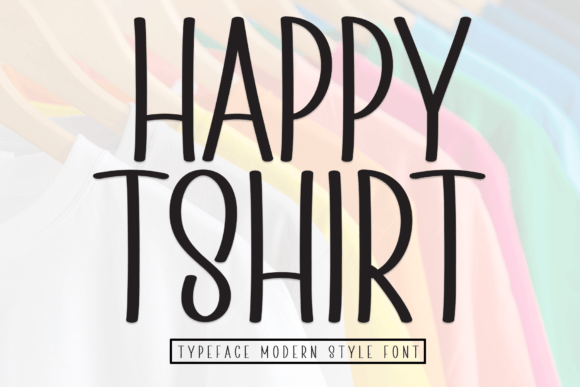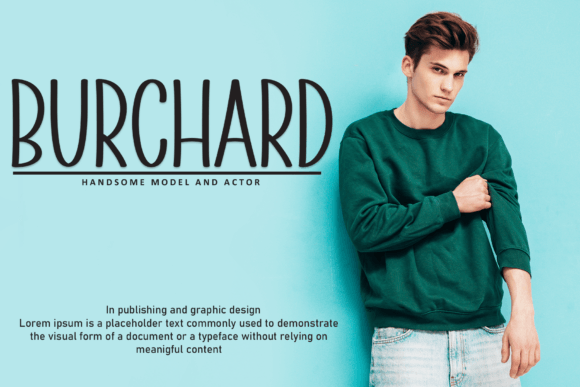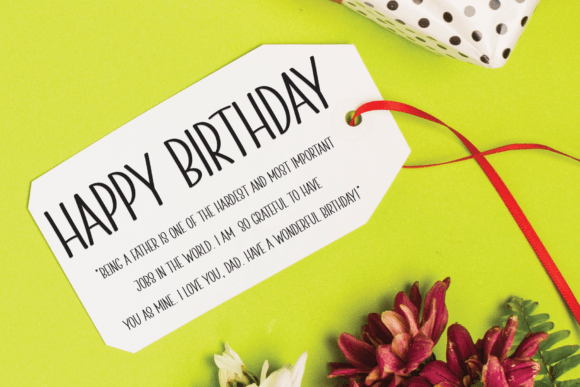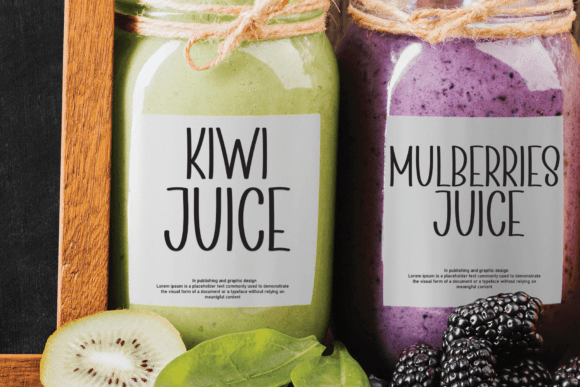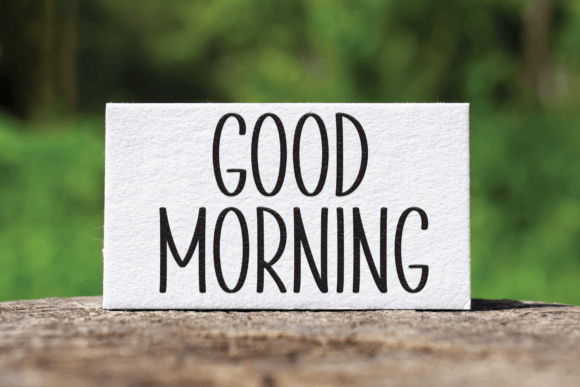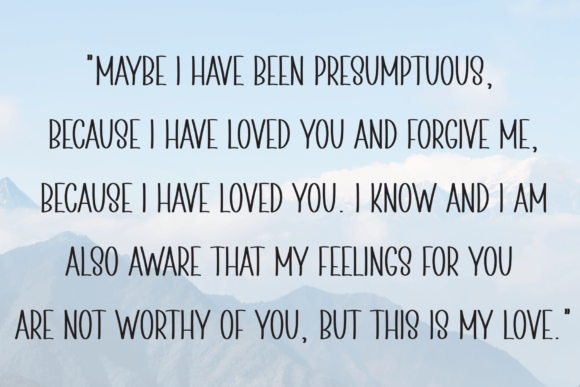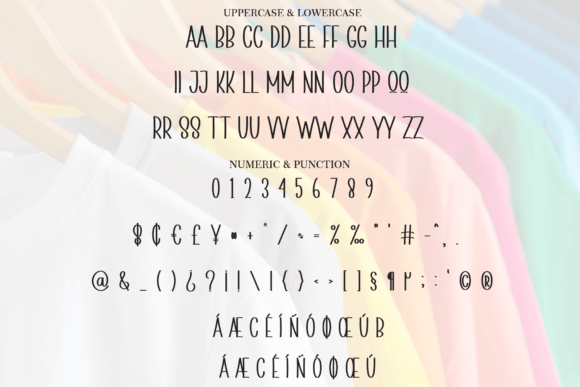
Adding a Personal Touch to Your Designs
Have you ever stumbled upon the perfect font while brainstorming ideas for a project, and suddenly the entire concept comes alive? That’s exactly what happened when I discovered the Happy Tshirt Font – a sweet and friendly handwritten font that instantly brought a smile to my face.
Happy Tshirt Font is the perfect addition to any design that needs a fun and playful touch. Whether you’re crafting wedding invitations, designing birthday cards, or creating any other type of visual content, this font is sure to bring a ray of sunshine to your work. As a designer, you’ll appreciate the versatility and charm of Happy Tshirt Font, making it a valuable asset to your toolkit.
Happy Tshirt Font Key Features
- Font Style: A playful, casual script font designed for use on t-shirts and other textile applications.
- Font Size: Suitable for use in sizes ranging from 8pt to 24pt, ideal for t-shirt designs.
- Resolution: Designed for use at high resolutions (up to 300 DPI), ensuring crisp and clear text on various fabric types.
- Unique Characteristics: Includes swashes and ligatures for added flair, as well as a range of alternate characters for creative expression.
- Font Weight: Available in Regular and Bold weights, providing flexibility for various design applications.
Happy Tshirt Font Review
Overall, I think the Happy Tshirt Font has its moments, but it’s not a one-size-fits-all solution. Here are some things that work well:
- ✨ It’s super playful and fun, perfect for casual, laid-back designs. The font has a carefree vibe that’s hard to resist.
- ✨ The font is highly customizable, with a wide range of color options and styles to choose from. This makes it easy to match with different brand identities.
- ✨ It’s highly legible, even at smaller font sizes, which is essential for t-shirts and other textile applications.
- ⚠️ The font may not be suitable for more formal or professional designs, as it can come across as too casual or childish.
- ⚠️ The font’s expressiveness can also make it difficult to read at a distance or in low-light conditions.
Overall, I think the Happy Tshirt Font is a solid choice for designers who need a fun, playful font for casual designs. Just be mindful of its limitations and consider the target audience and application carefully.
The Happy T-Shirt Font is ideal for creating fun and playful designs, such as:
- T-shirts and apparel
- Social media graphics and memes
Remember to adjust the font size and color to match your design’s style and tone. Experiment with different combinations to achieve the desired effect.
Alternatives to Happy Tshirt Font for Designers
Great Vibes Font is a modern, cursive script font that is perfect for creating a fun and playful atmosphere. It’s ideal for designing t-shirts, posters, and other promotional materials where you want to convey a sense of happiness and optimism.
Compared to Happy Tshirt Font, Great Vibes Font has a more elegant and refined look, making it suitable for a wider range of designs. While Happy Tshirt Font is more playful and casual, Great Vibes Font is more versatile and can be used in both casual and formal designs.
Alex Brush Font is a elegant and sophisticated script font that is perfect for creating a sense of luxury and refinement. It’s ideal for designing high-end products, such as luxury fashion brands or premium food products.
Compared to Happy Tshirt Font, Alex Brush Font has a more formal and polished look, making it suitable for designs that require a sense of sophistication and elegance. While Happy Tshirt Font is more playful and casual, Alex Brush Font is more refined and luxurious.
Pacifico Font is a modern and elegant script font that is perfect for creating a sense of relaxation and calmness. It’s ideal for designing products related to wellness, travel, or outdoor activities.
Compared to Happy Tshirt Font, Pacifico Font has a more relaxed and casual look, making it suitable for designs that require a sense of calmness and serenity. While Happy Tshirt Font is more playful and energetic, Pacifico Font is more laid-back and soothing.
What is the recommended font size for the Happy Tshirt Font?
The recommended font size for the Happy Tshirt Font is between 12pt and 24pt. This range provides optimal readability and visual appeal for most design applications. However, you can experiment with different font sizes to achieve the desired effect for your specific design.